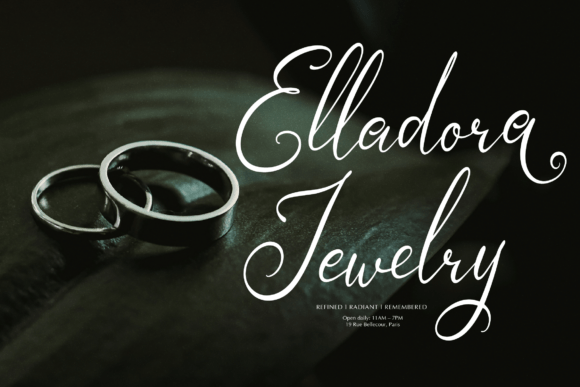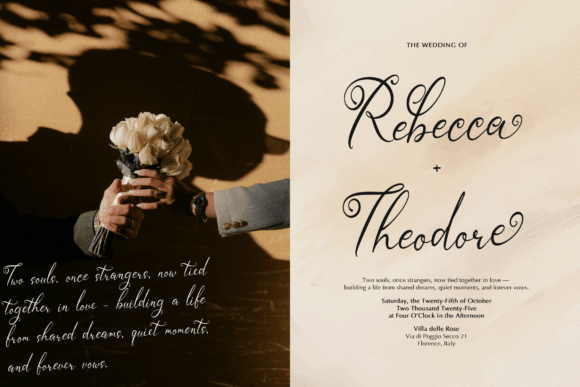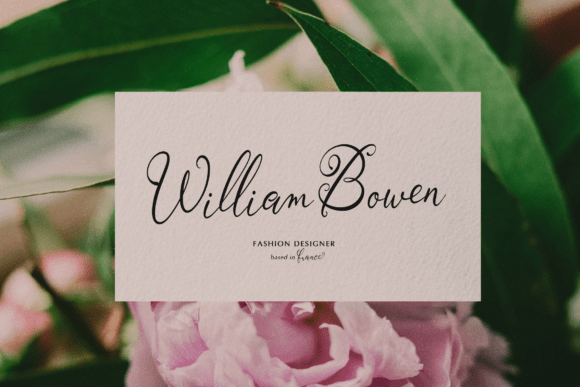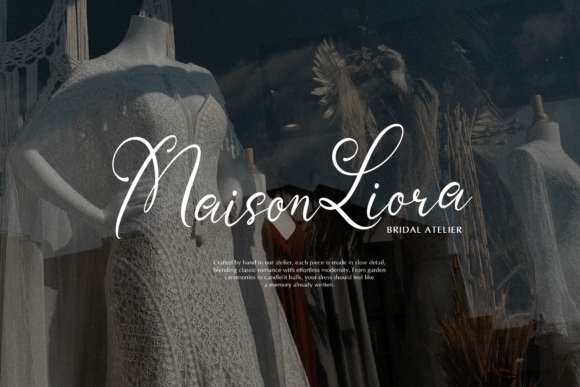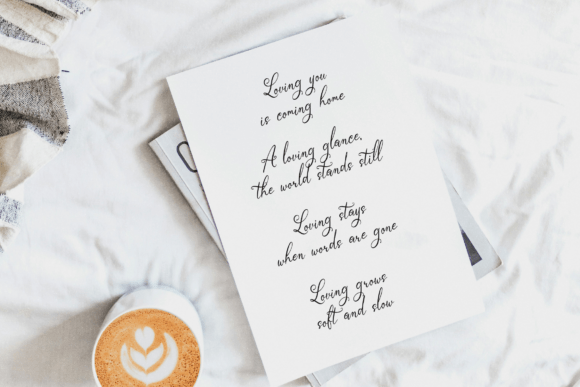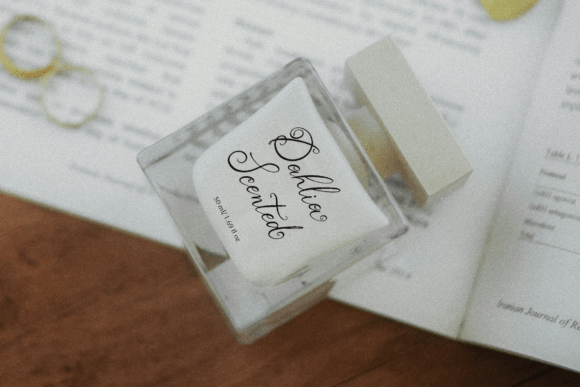
Introduction to Saphira Amarilli Font
Have you ever stumbled upon a beautiful handwritten font that instantly sparks an idea for a creative project? For many designers, this is the moment when inspiration strikes, and a new concept begins to take shape. For those who crave a touch of elegance and sophistication in their designs, the Saphira Amarilli Font is a treasure trove of possibilities.
This stunning font is not just a design resource, but a key to unlocking the full potential of your creative vision. With its beautiful, handwritten script, the Saphira Amarilli Font is perfect for a wide range of applications, from logos and branding projects to homeware designs, product packaging, and even photography. Its high quality and versatility make it an invaluable asset for designers seeking to elevate their work.
Key Features of Saphira Amarilli Font
- High-quality design resource with a unique, elegant script style.
- Features a transparent background, allowing for easy layering and customization.
- Designed with a high resolution of 300 DPI, ensuring crisp and clear text even at larger sizes.
- Perfect for use in a variety of design contexts, from wedding invitations and greeting cards to branding and packaging.
Honest Review: Saphira Amarilli Font
I recently came across the Saphira Amarilli Font and was immediately drawn to its unique style and high quality. As a designer, I’m always on the lookout for design resources that can elevate my creative projects and give me a professional edge.
What works well with the Saphira Amarilli Font is its versatility. It’s perfect for projects that require a touch of elegance and sophistication, such as wedding invitations, business cards, or even magazine headers. The font’s intricate details and ornate design elements make it a standout choice for designers who want to add some flair to their work.
- High-quality design with intricate details and ornate elements
- Perfect for creative projects that require elegance and sophistication
My only criticism is that the font’s transparent background can be a bit tricky to work with. It requires some extra effort to set up correctly, but the end result is worth it.
Overall, I’m very impressed with the Saphira Amarilli Font. It’s a valuable addition to any designer’s toolkit and can help take their creative projects to the next level.
The Saphira Amarilli Font is a versatile design resource perfect for creative projects that require a touch of elegance and sophistication. With its high-quality design and transparent background, this font is ideal for a wide range of applications.
Getting the Most Out of Saphira Amarilli Font
To maximize the potential of this font, experiment with different font sizes, colors, and combinations to create unique and eye-catching designs. Use it for headings, titles, and body text to add a touch of sophistication to your creative project.
The Saphira Amarilli Font is ideal for various applications, including:
- Business cards and branding materials
- Book covers and interior design
- Social media graphics and advertisements